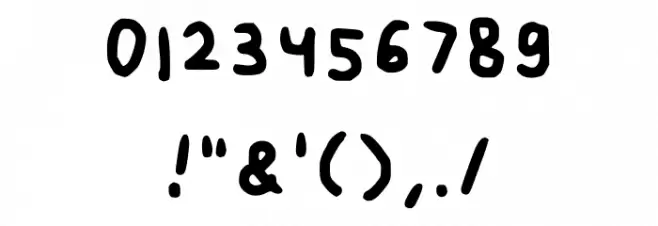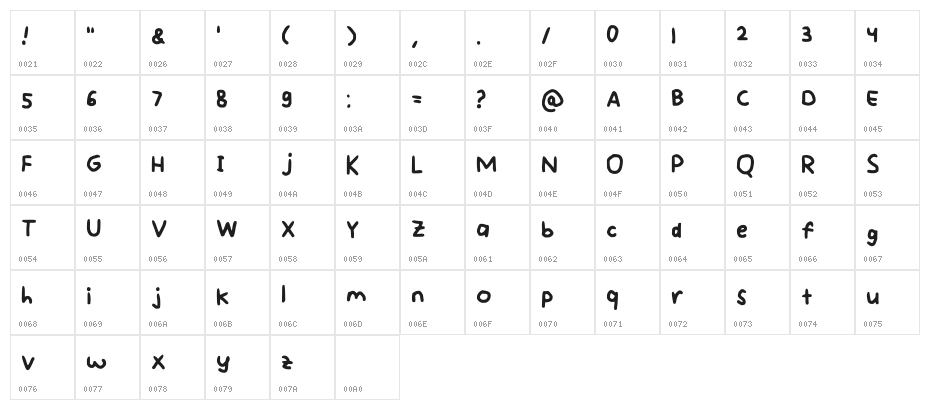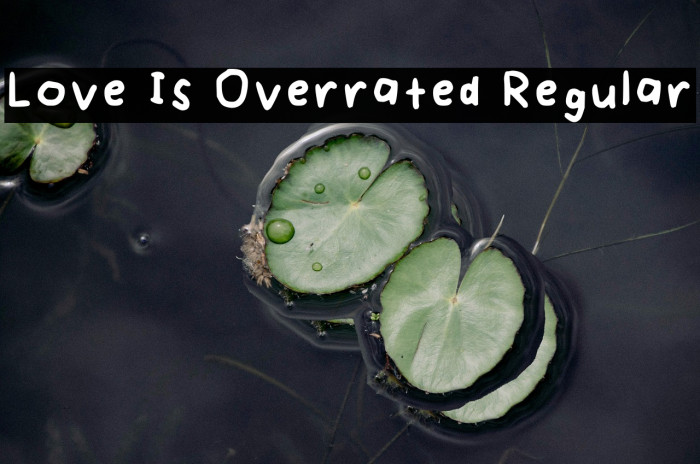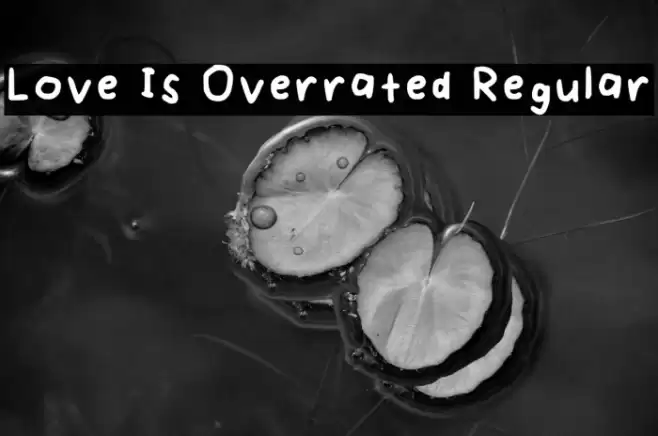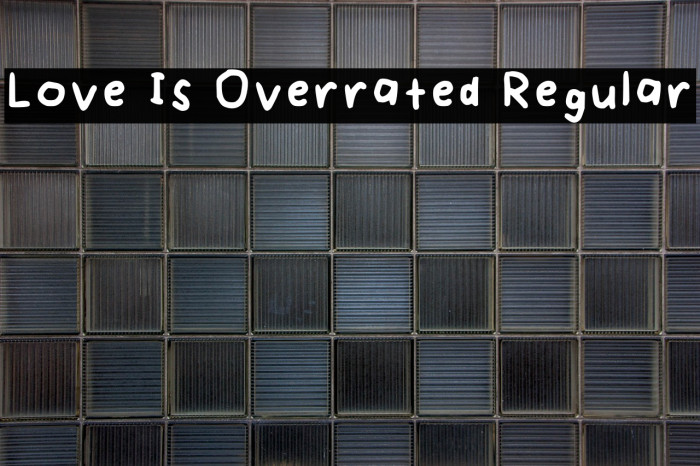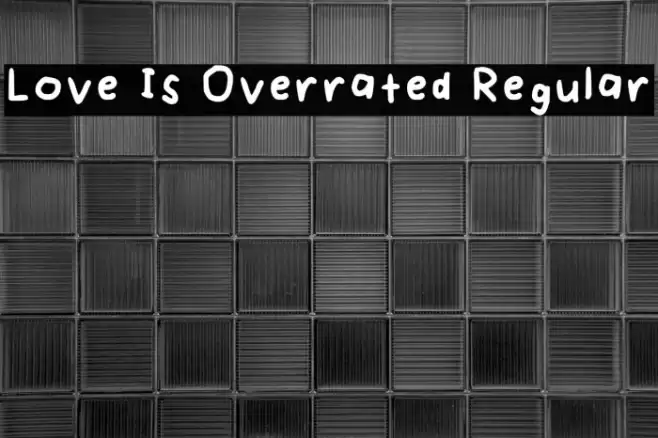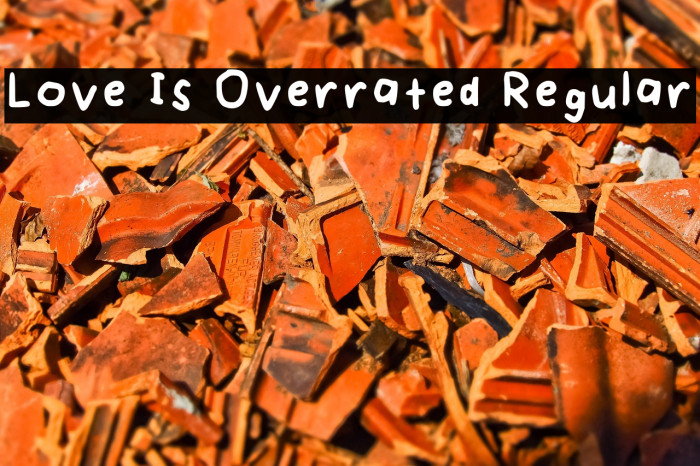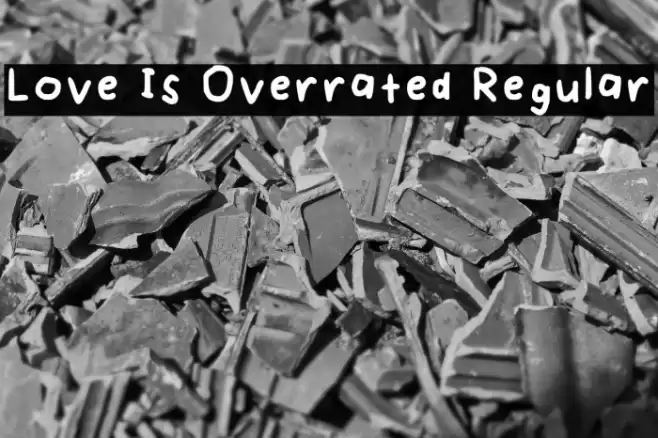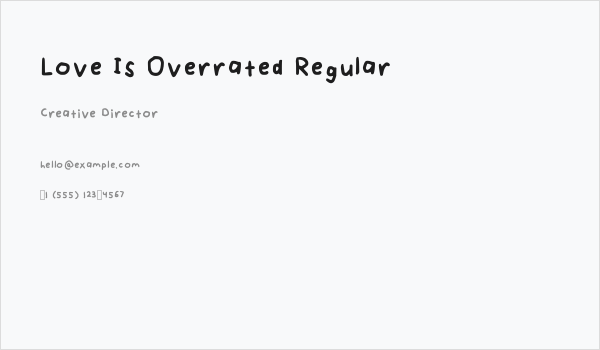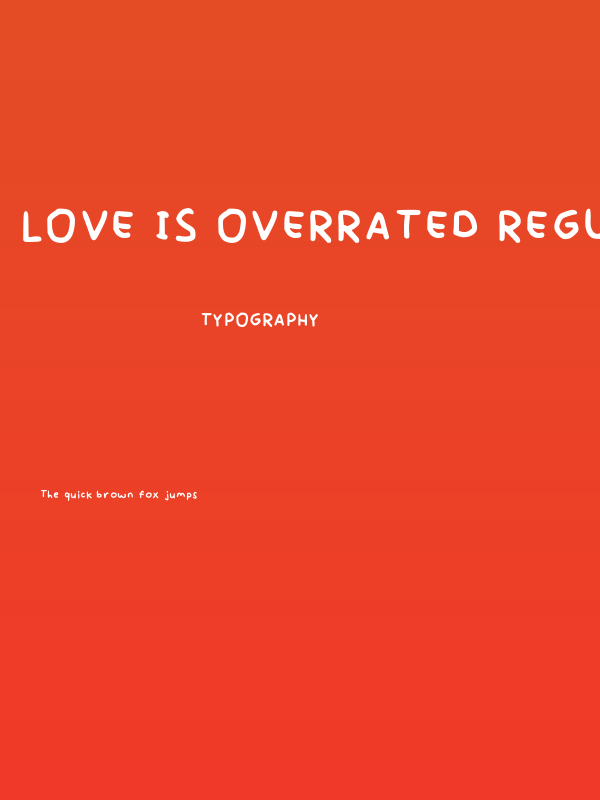
Love Is Overrated Regular Font
Love Is Overrated Regular Description
This font features a playful, handwritten style with a casual and informal appearance. The letters are slightly irregular, adding a personal touch that mimics natural handwriting. The strokes are rounded and smooth, giving it a friendly and approachable feel. The font maintains consistent thickness throughout, with minimal contrast between strokes. It includes both uppercase and lowercase letters, numerals, and a selection of punctuation marks, making it versatile for various uses.
| Proposed Projects | Ideal for greeting cards, children's books, casual invitations, and personal branding projects. |